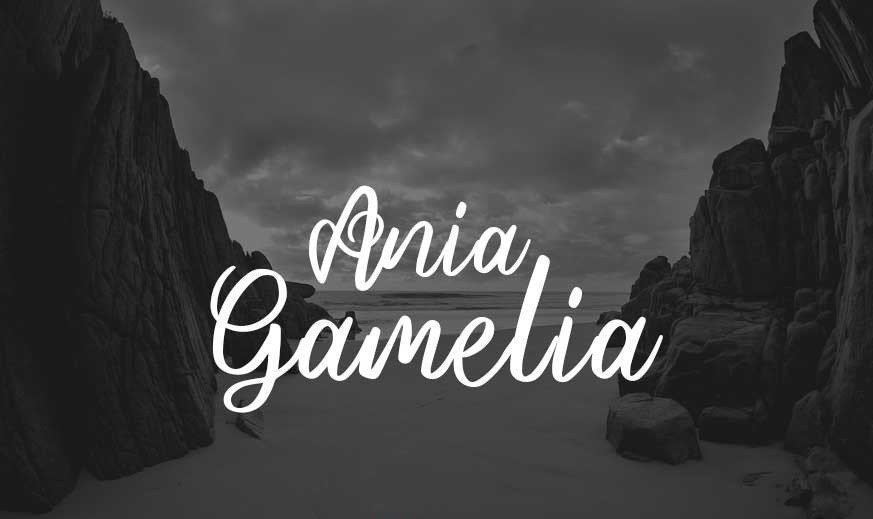
Ania Gamelia Handlettering Script Font
Ania Gamelia is So beautiful on invitation like greeting cards, branding materials, business cards, quotes, posters, and more!